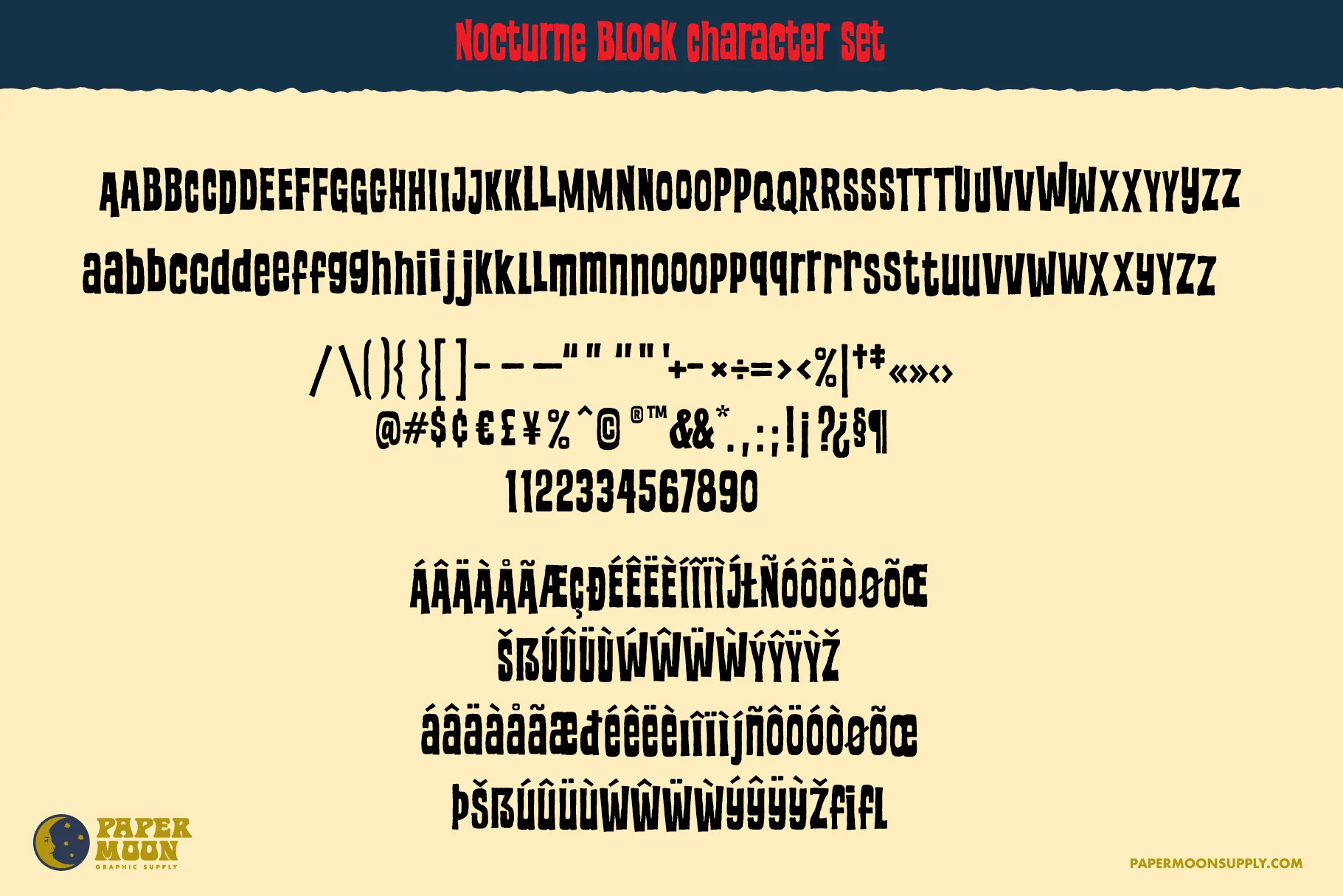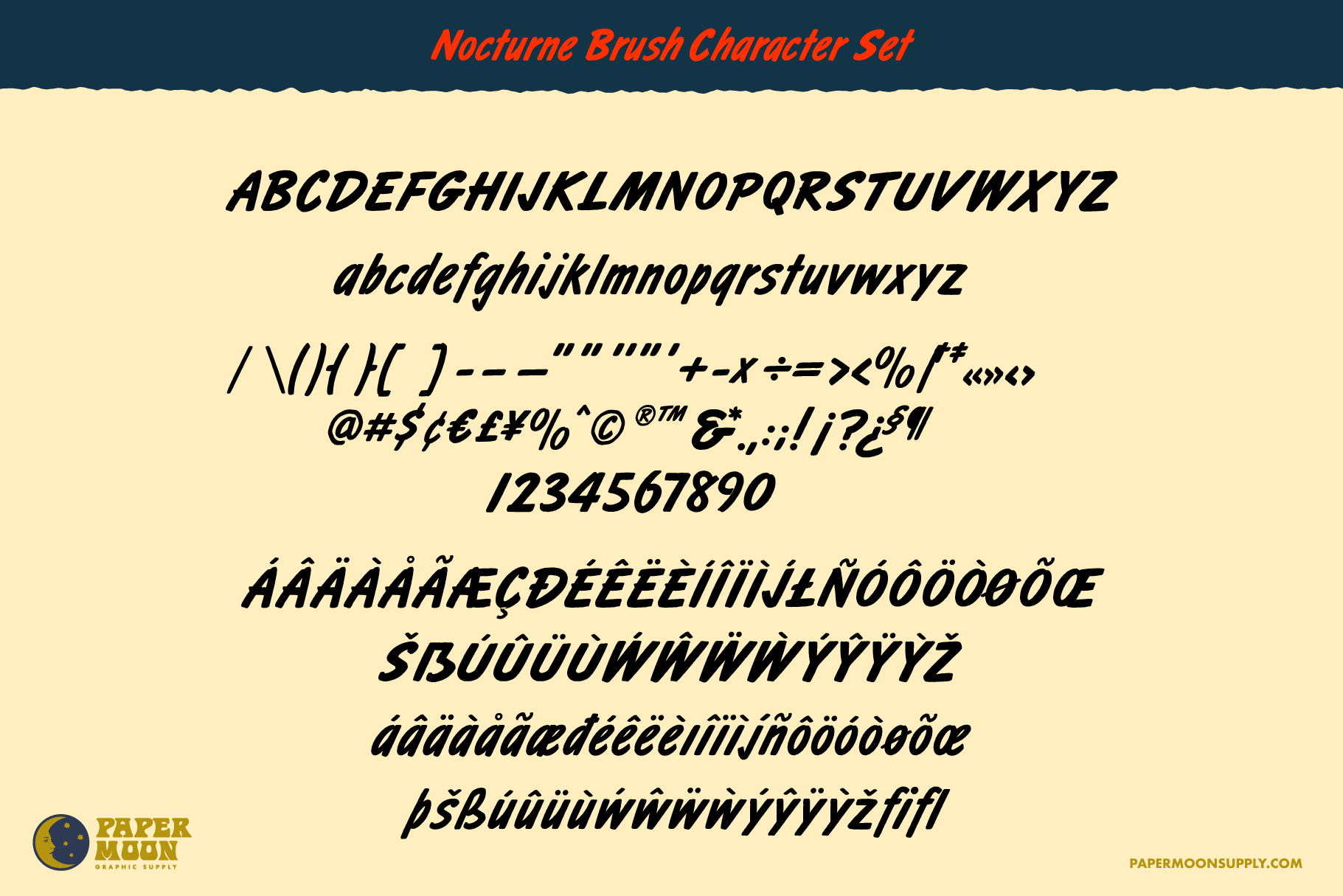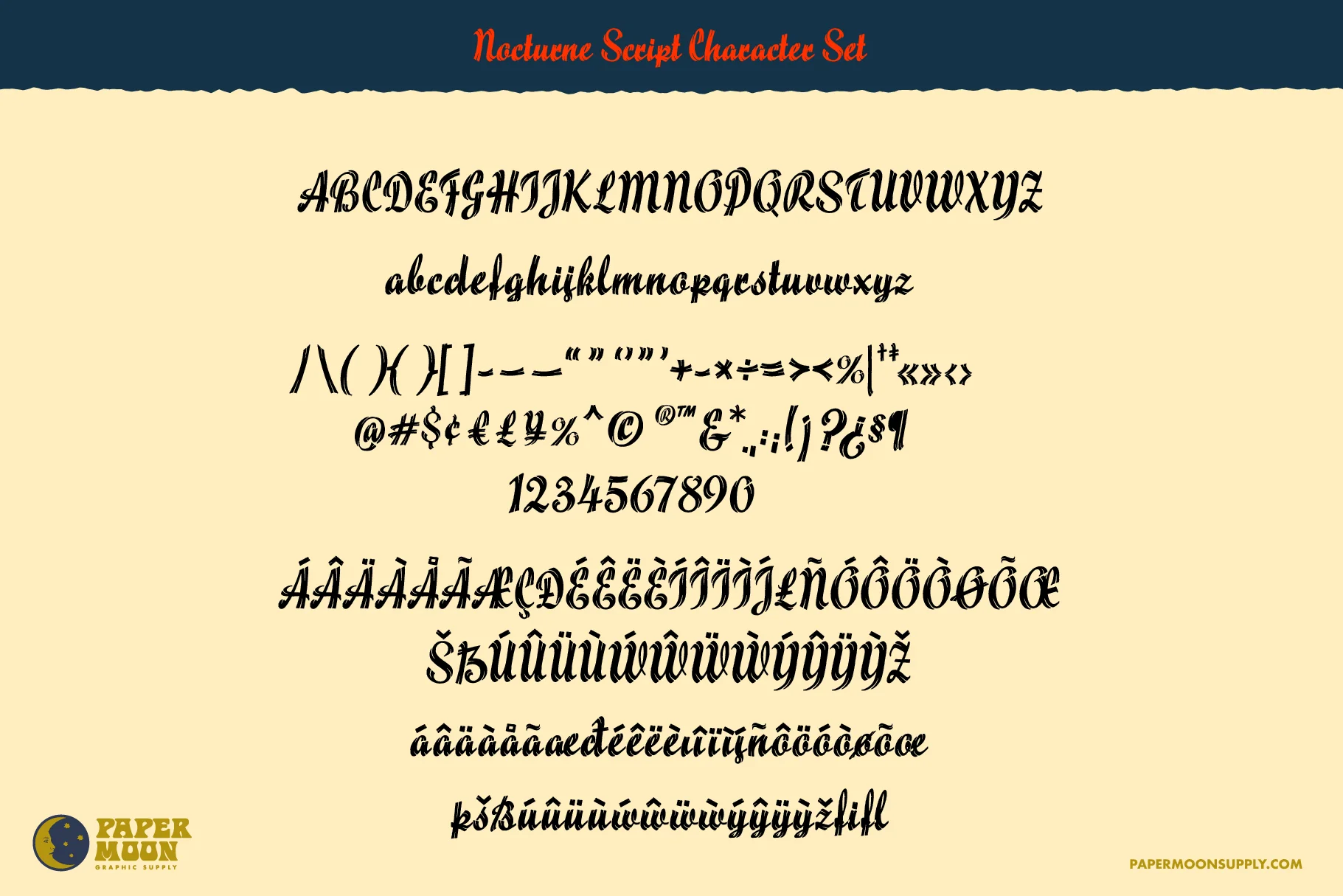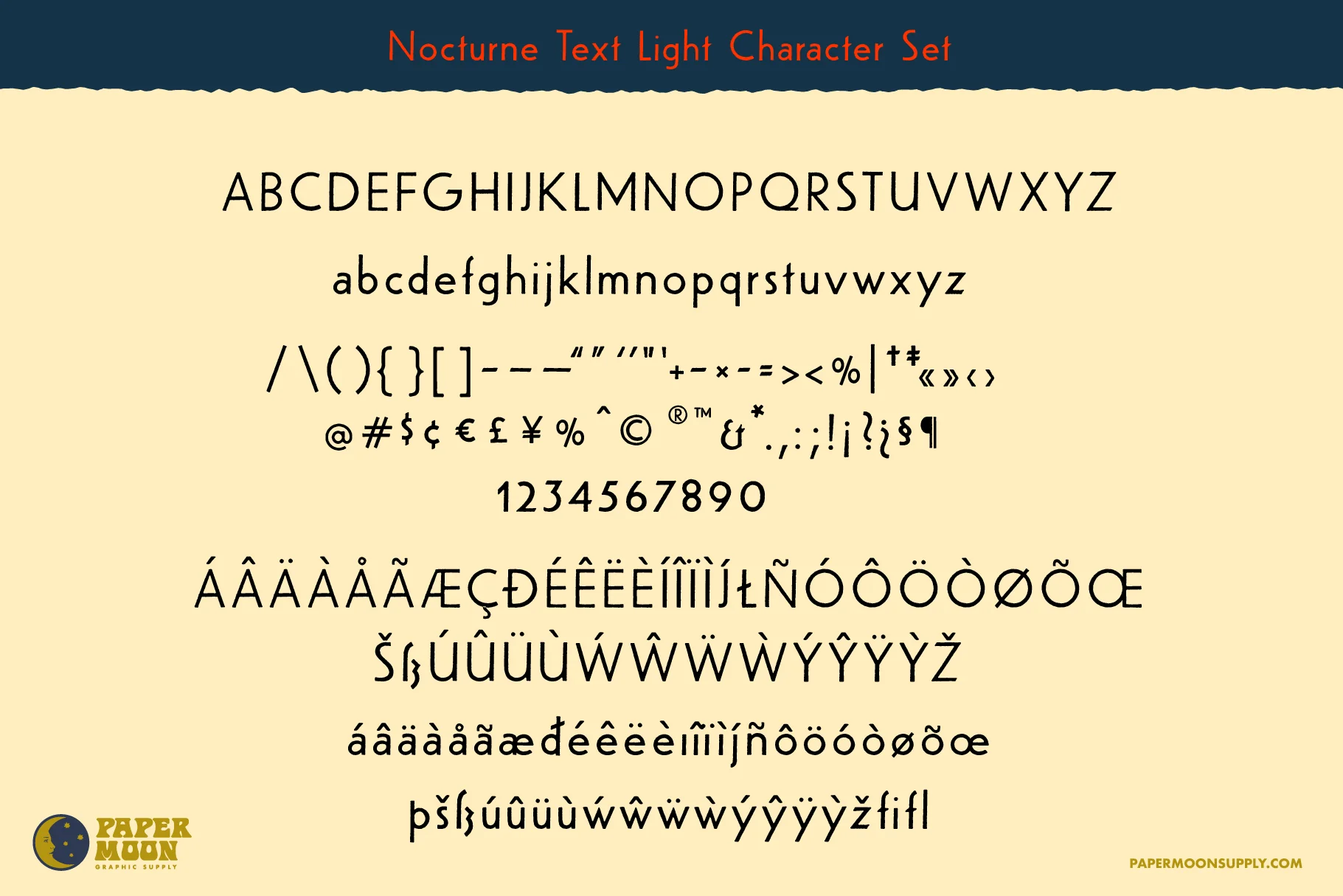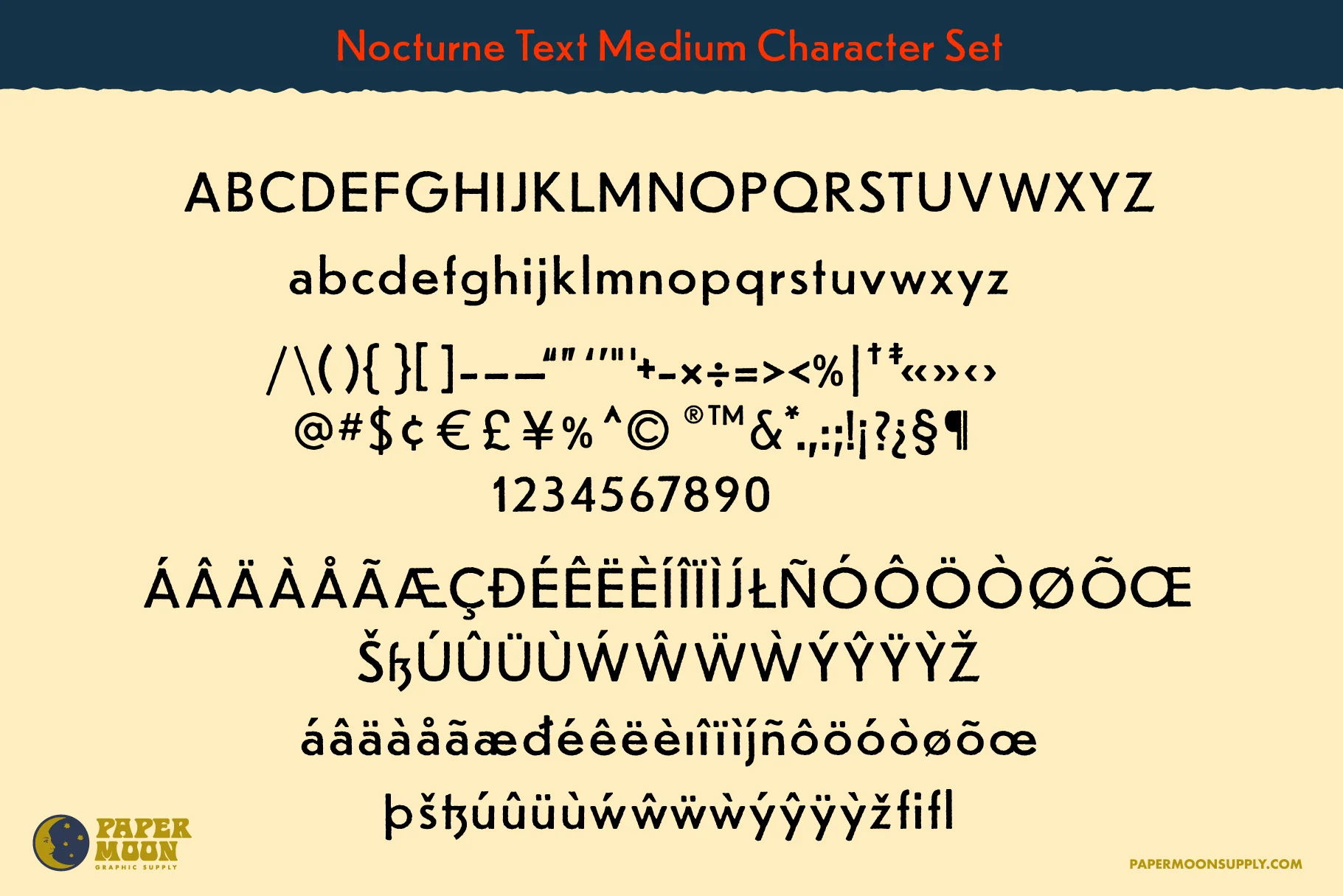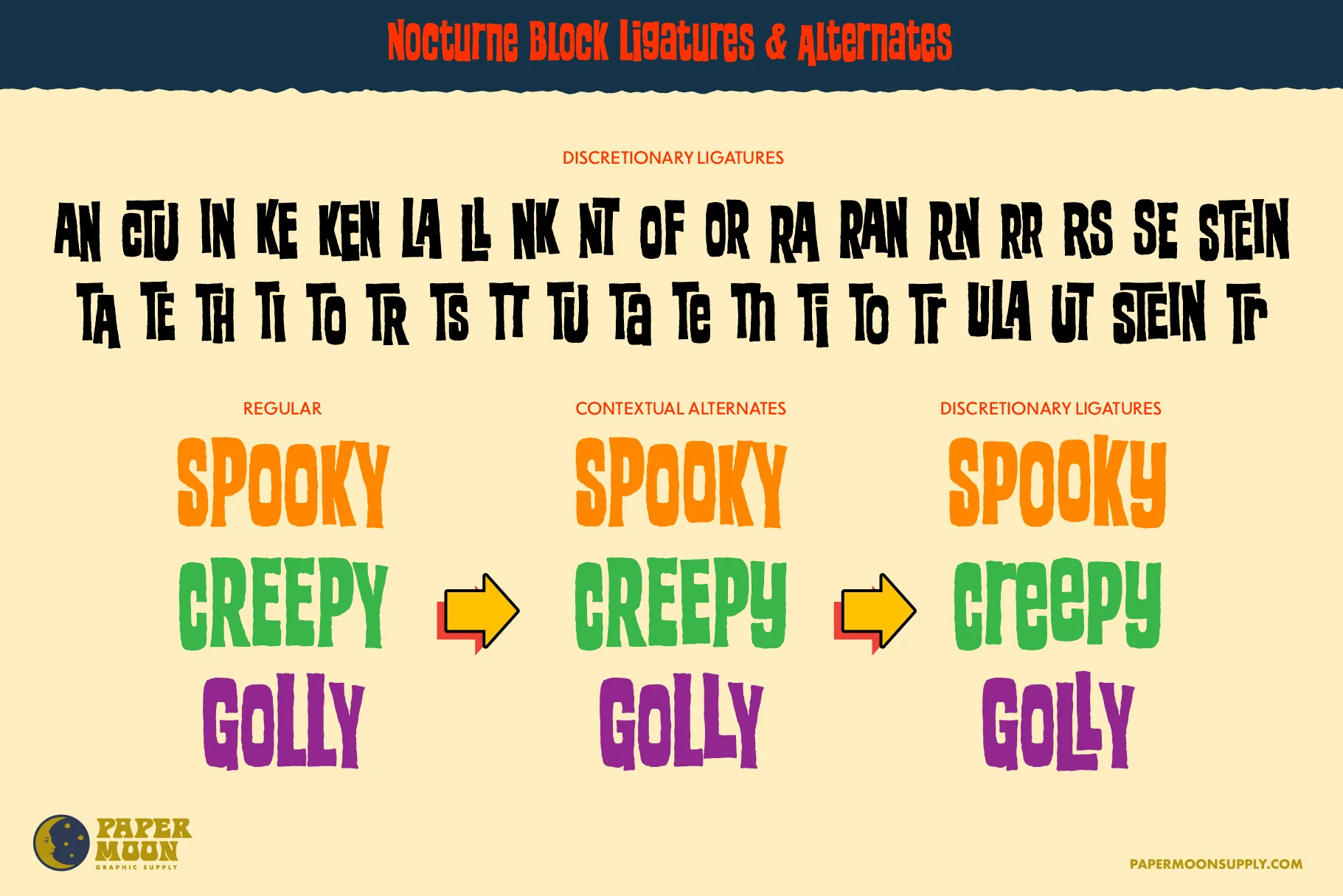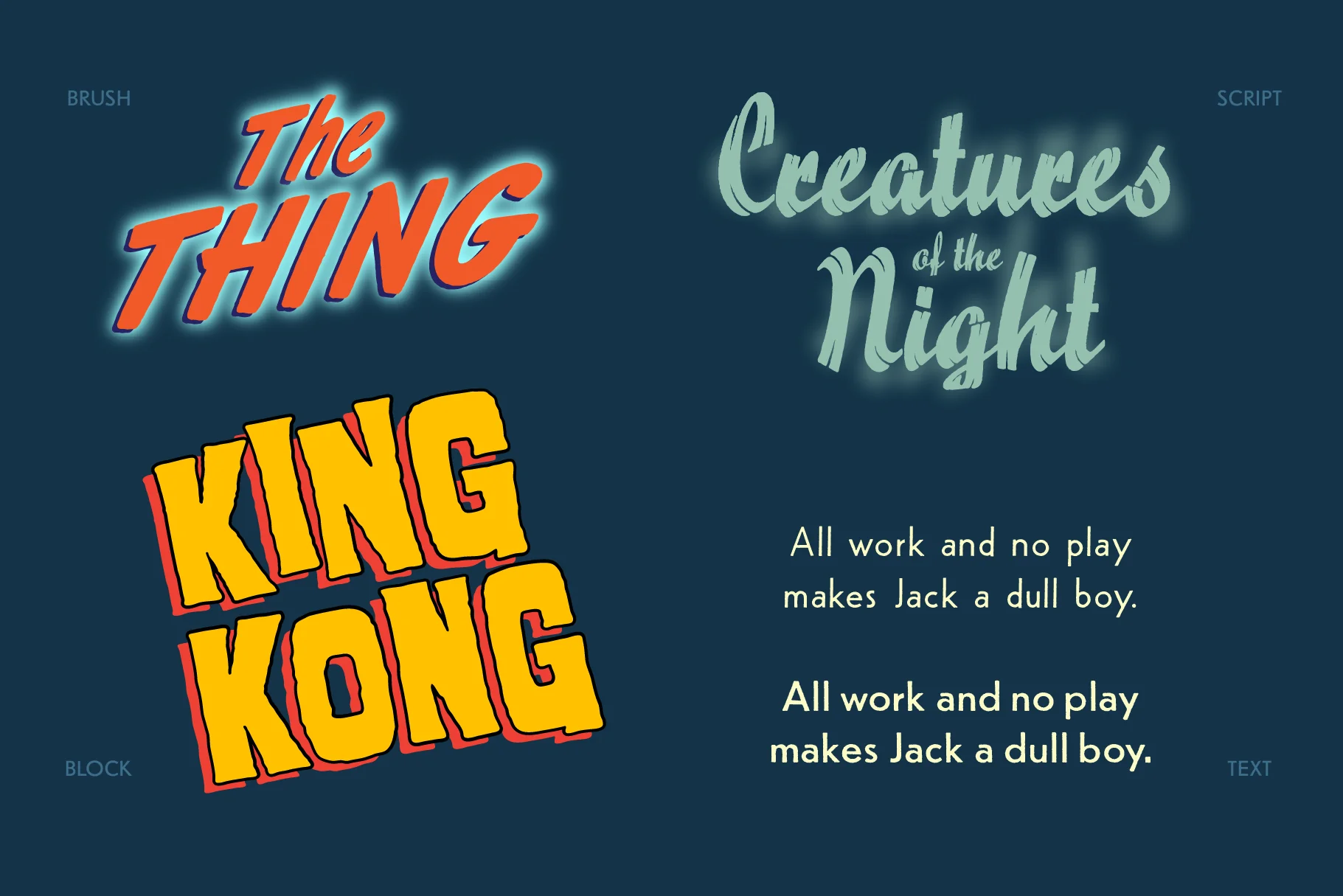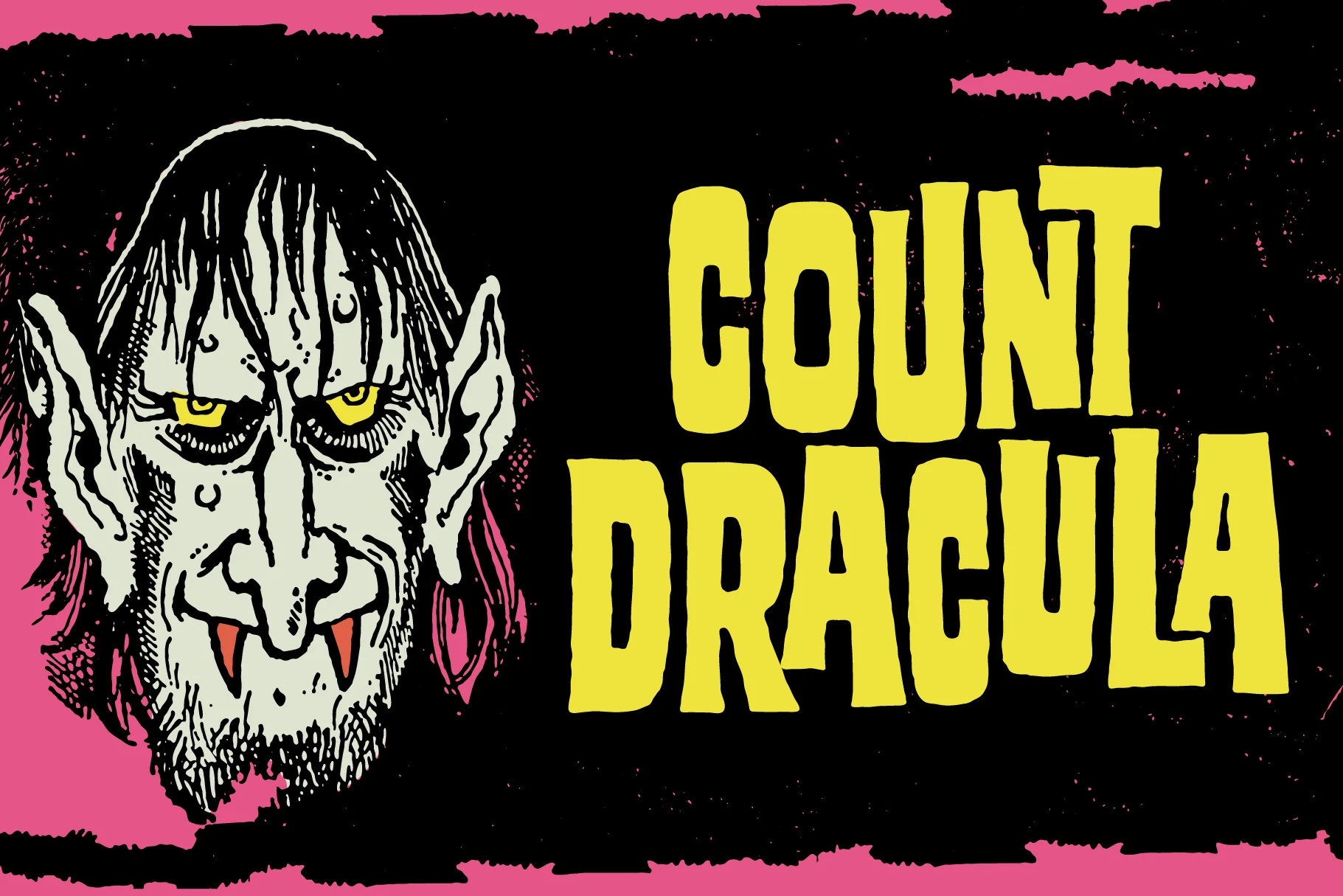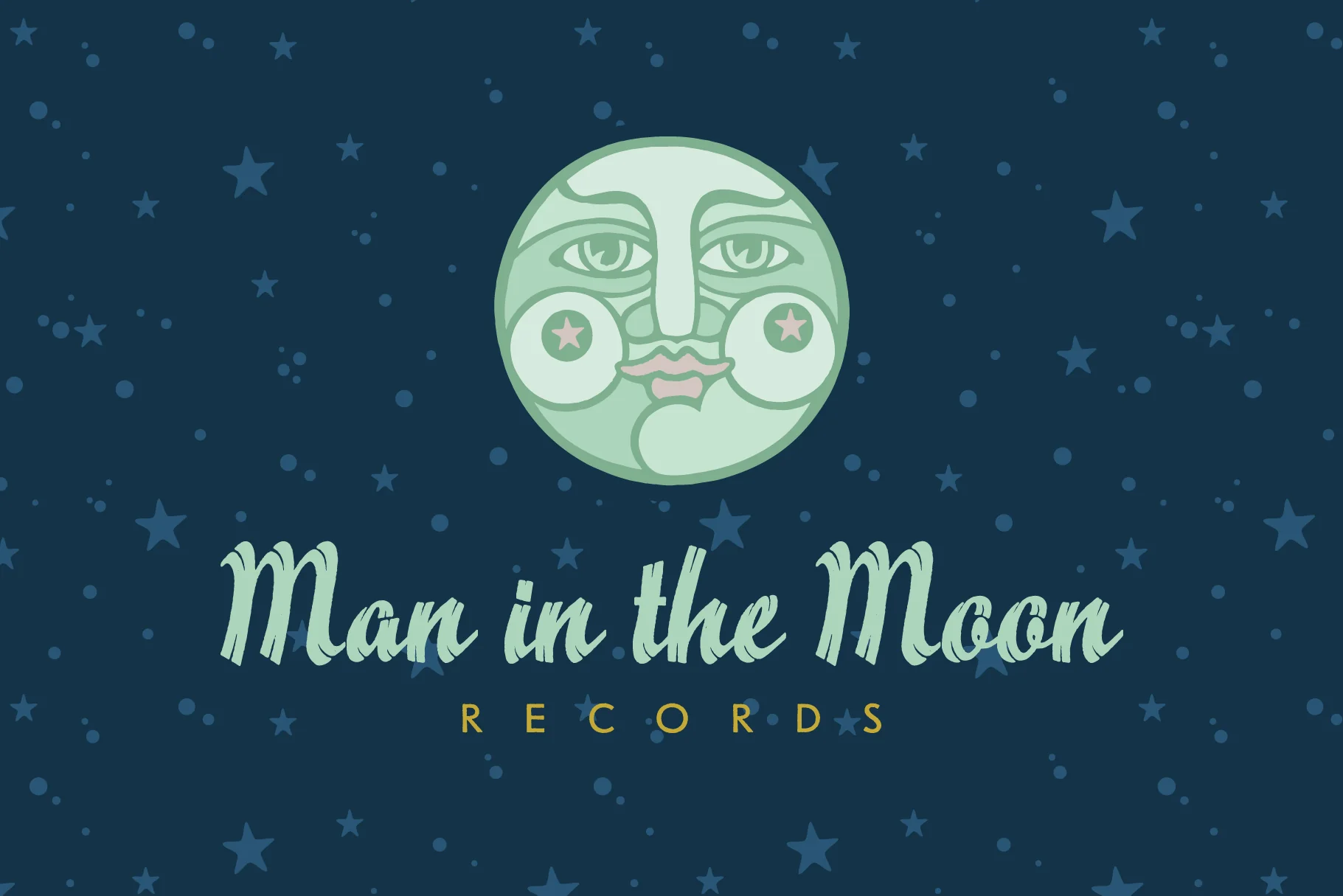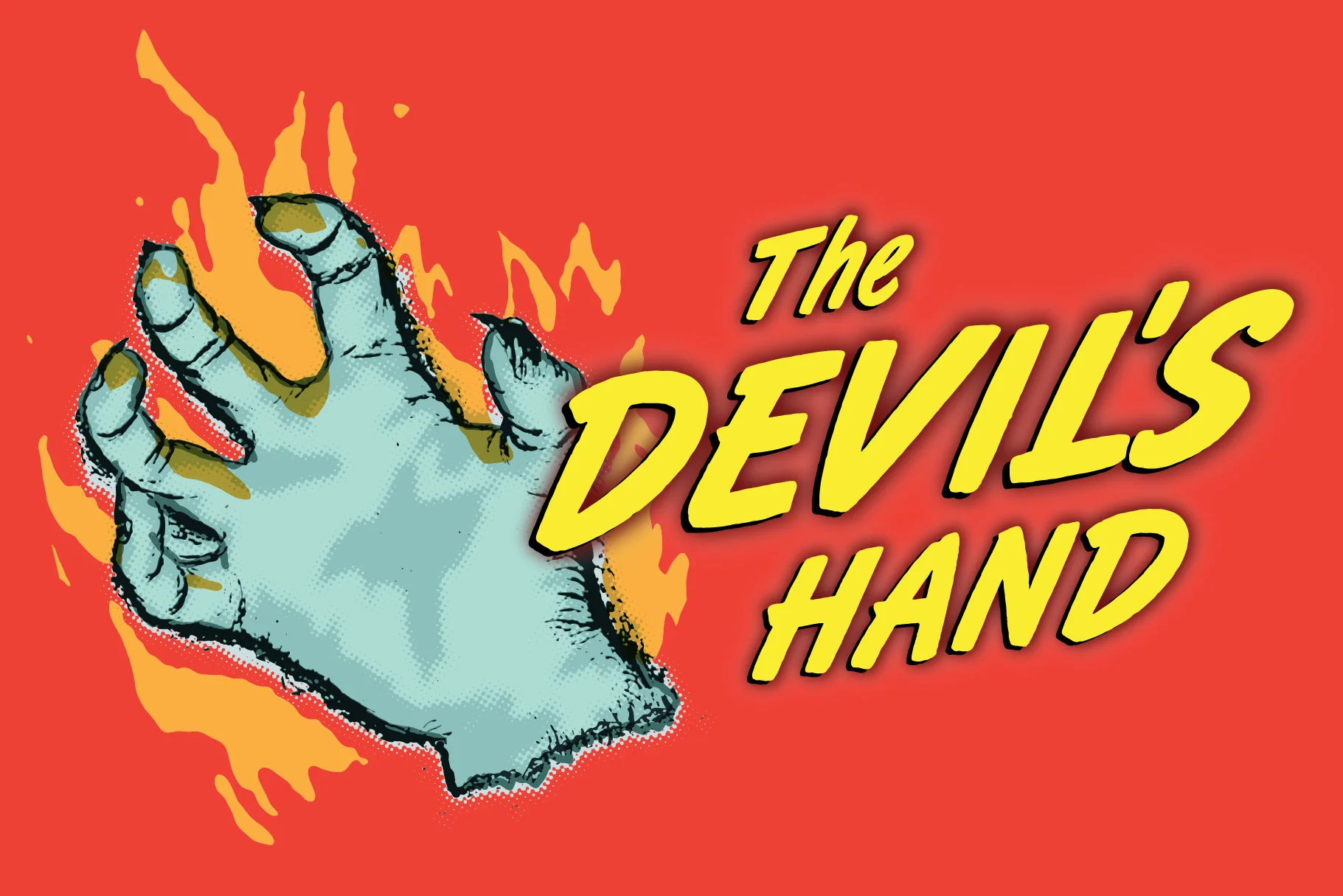
Unlock vintage horror and retro comic nostalgia with The Nocturn Collection—a four-font set designed to add bold, authentic flair to your designs.
This collection includes Brush, Block, Script, and Text fonts inspired by mid-century posters, pulp covers, and hand-lettered signage.
Each style is crafted to capture the spirit of classic horror and Americana, making this a must-have toolkit for creating standout, retro-inspired designs.
Four Unique Fonts, One Cohesive Collection: The Nocturn Collection is built to mix and match. Use the Brush for hand-drawn energy, Block for bold statements, Script for vintage elegance, and Text (in Light and Medium weights) for clean readability. Perfect for posters, branding, comics, and more.
Handcrafted Ligatures & Alternates: The Nocturne Block font features ligatures and alternates that mimic vintage printing quirks, letting your text look custom and crafted without extra work.
Ready-to-Use Graphic Styles: The collection includes preset styles like "Frankenstein" and "Wolfman" for instant themed effects, ideal for horror and retro projects.
Extensive Multilingual Support: Full character sets with accents and symbols mean you’re covered for projects in multiple languages, without compromising style.
- Nocturne Brush: Energetic, hand-brushed strokes.
- Nocturne Block: Rough, bold, all-caps for high impact.
- Nocturne Script: Elegant, flowing script with retro flair.
- Nocturne Text (Light & Medium): Clean, classic sans-serif for balance.
Ligatures & Alternates: In Nocturne Block, for an authentic, hand-made look.
Themed Graphic Styles: Easy-to-apply horror styles—Frankenstein, Wolfman, Creature, and more.
Whether you’re crafting spooky posters or retro branding, The Nocturne Collection has everything you need for a striking, nostalgic design.